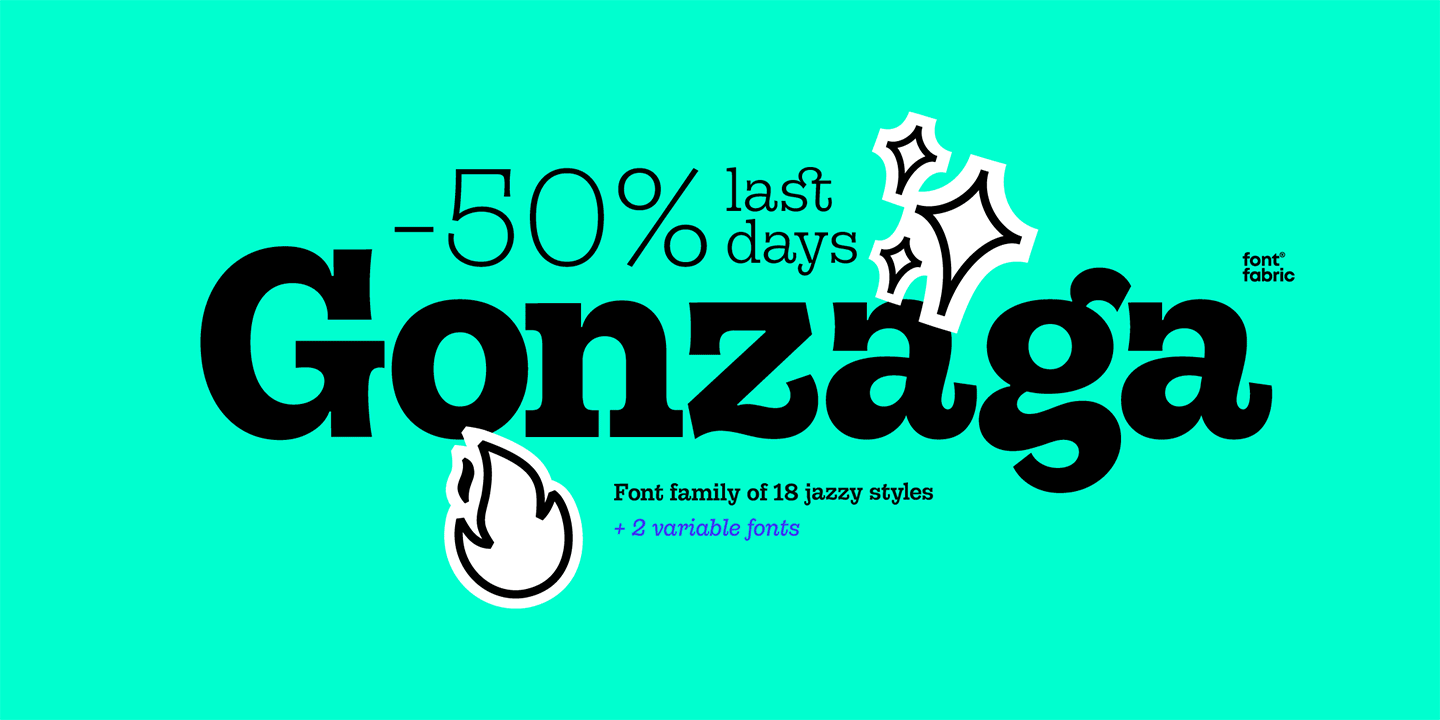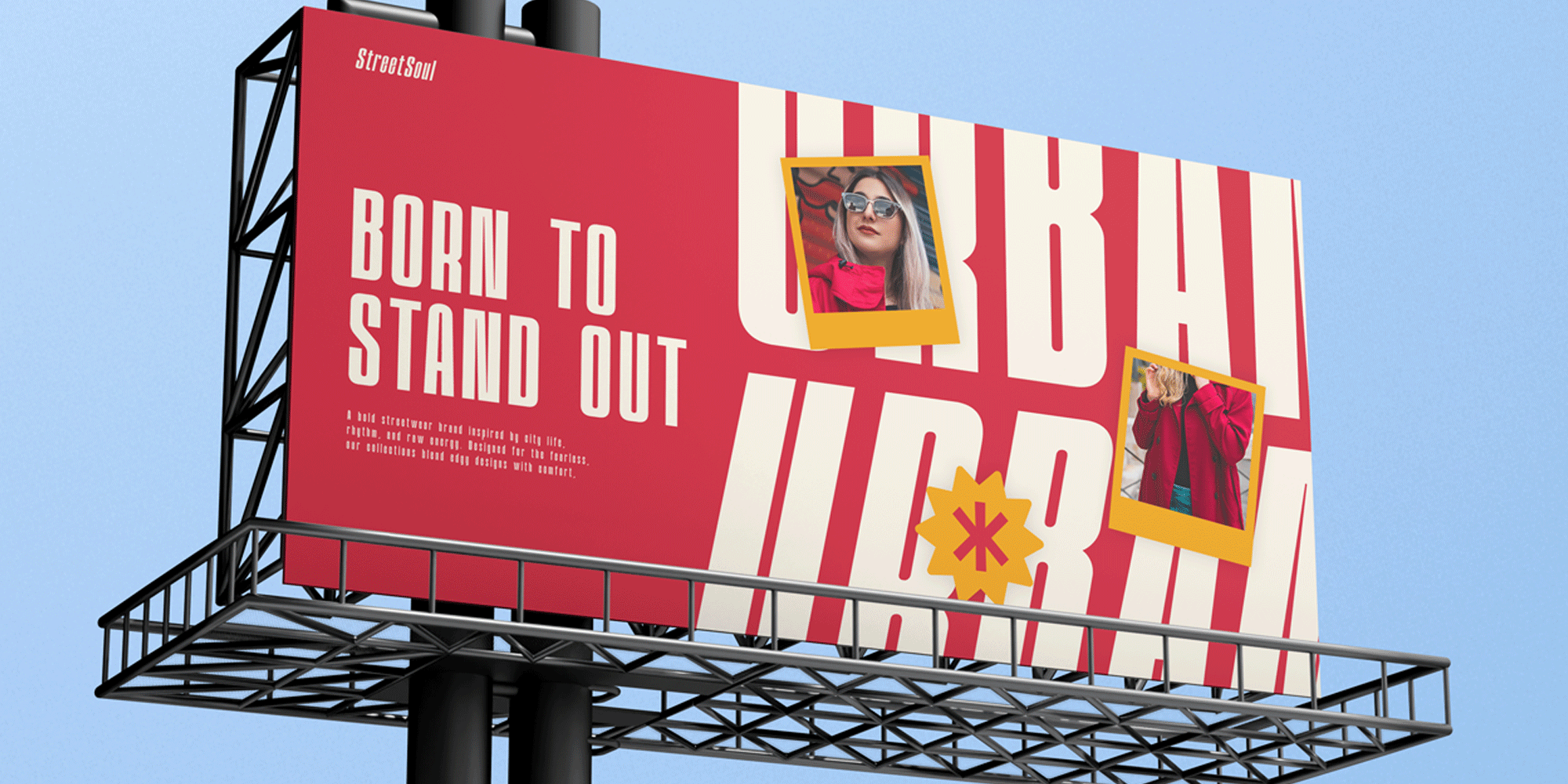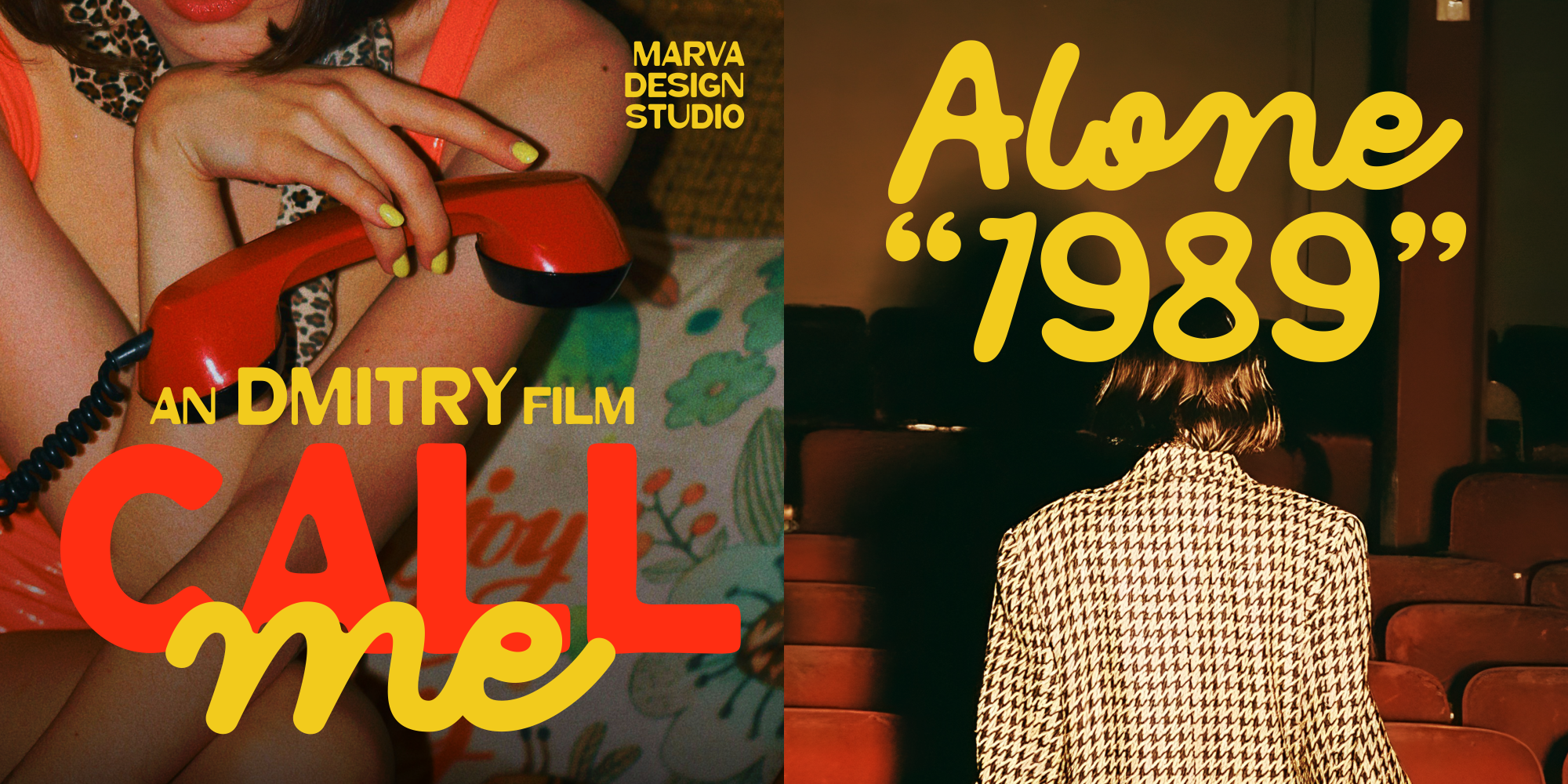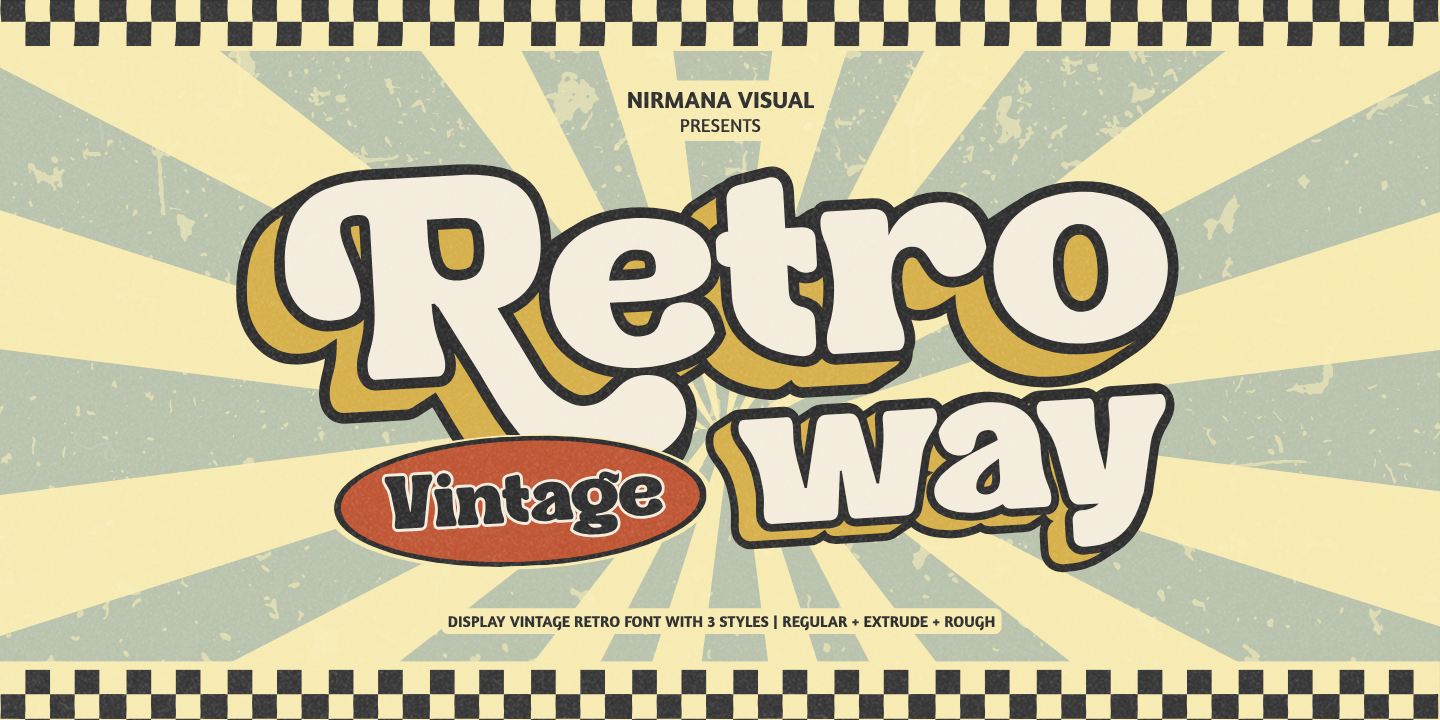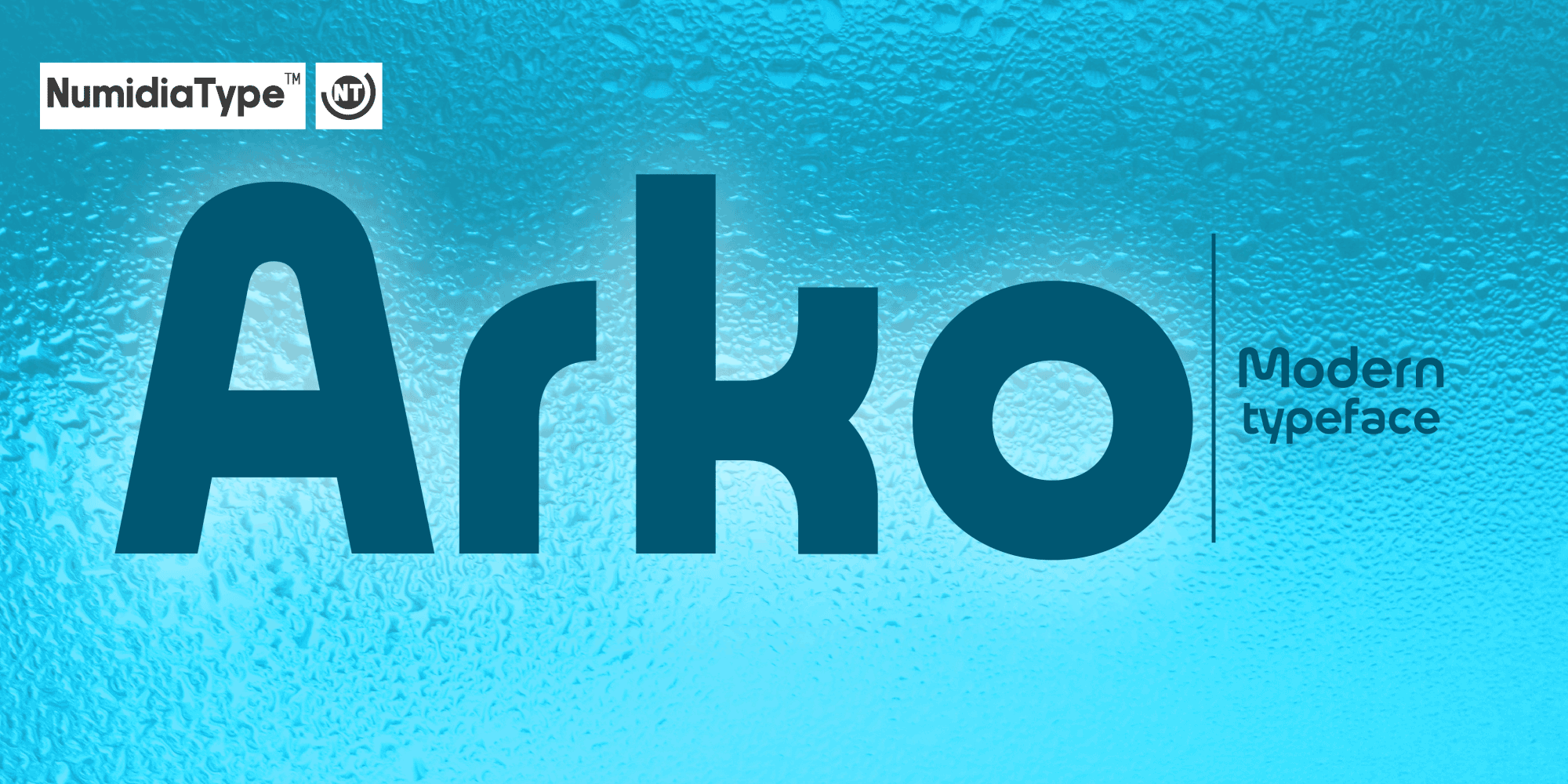
Gonzaga is designed to shine in both small and large sizes, making it a great choice for a wide range of uses. With its distinctive true italics and extensive ligature set, Gonzaga adds a unique charm to your designs. The typeface supports over 130 languages, including expert Cyrillic with local forms, ensuring your projects resonate globally. From music industry branding to food and beverage packaging, Gonzaga's strong voice and steady skeleton make it an indispensable tool for any designer. “We're thrilled to announce the official release of Gonzaga, our vibrant new typeface that reimagines the classic Clarendon slab serif. With 18 distinct styles, from Thin to Black, and both upright and italic forms, Gonzaga brings a modern edge to timeless design.” — Fontfabric Introductory OFFER - 50% OFF 20 fonts for $199 $99.50 | |
A seasoned designer with deep roots in Cyrillic and typographic history, Kiril brought essential guidance to the Gonzaga project. His sharp eye for detail and structural balance helped bridge the gap between tradition and function—offering key insights that shaped the typeface's distinctive tone and precision. Introductory OFFER - 50% OFF 20 fonts for $199 $99.50 | |
Elevate your design projects with Odrine, the font that seamlessly blends power and sophistication. With proportions and tight spacing, it transforms logos, ads, and editorial titles into standout pieces. Odrine features an impressive 16 weights, from thin to bold black, along with variable support, making it adaptable to any brand system or modern design need.
Imagine the flexibility of having uppercase and lowercase options, multilingual support, and professional kerning that ensure every letter fits perfectly. Whether you're crafting eye-catching posters, sleek corporate designs, or dynamic web typography, Odrine delivers every time. | |
Discover the elegance of Arko™, the font that's transforming design with its unique blend of modern and classic elements. Arko's clean lines and hybrid nature bring a perfect harmony to your projects, capturing the best of both sans and serif worlds. With each letter crafted for perfect proportionality, your text will not only stand out but flow seamlessly, enhancing the reader's experience.
Imagine the possibilities with Arko's diverse range of alternative characters and styles. This rich font family empowers you to explore creative avenues while ensuring clarity and visual appeal. Whether you're designing for web, print, or creating stunning logotypes, Arko is your go-to choice for versatility and style. Plus, its multilingual support makes it ideal for international endeavors. | |
Meet Bolze, a dynamic duo of Sans Serif and Script styles, designed to breathe life into your projects. Picture the Sans Serif's solid, rounded edges imparting a sense of warmth and approachability. Pair that with the Script's graceful curves, and you've got a recipe for typography magic.
This isn't just a font—it's your ticket to elevating retro branding, eye-catching posters, and lifestyle designs. Let Bolze's charm with a playful twist becomes your creative secret weapon. | |
Step back in time and breathe life into your designs with Retro Way, the font that celebrates the iconic style of yesteryears. Inspired by classic sign painting and retro lettering, Retro Way is your gateway to crafting logos, branding, posters, and signage that resonate with the charm of a bygone era.
With its bold extrude and rough texture, each letter in Retro Way carries the weight of history, yet feels fresh and relevant for today's creative projects. Imagine the impact of your words as they burst with vintage charisma and elegance, drawing the eye and capturing the imagination.
Transform your vision with Retro Way and let your designs echo with a touch of nostalgia and authenticity. Don't miss out on bringing this timeless appeal to your creative toolkit. | |